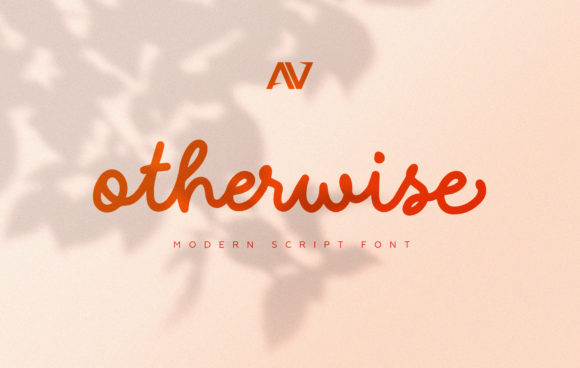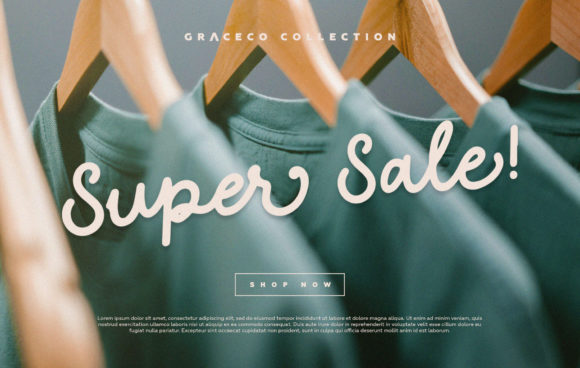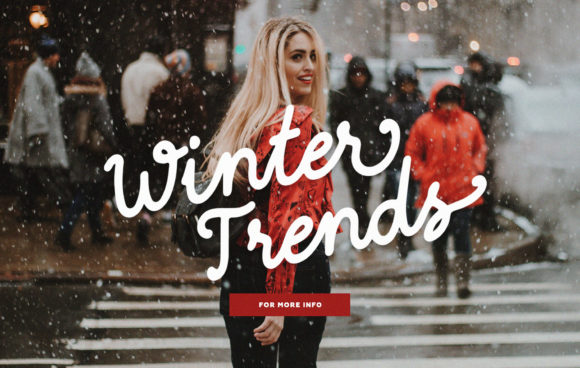
About Otherwise Font
Otherwise is a modern and beautiful script font perfect for any design. Add it to your casual and beauty style products, wedding designs, quotes, posters, packaging, logotypes, magazines, and many more, and make some beautiful stuff with Otherwise!